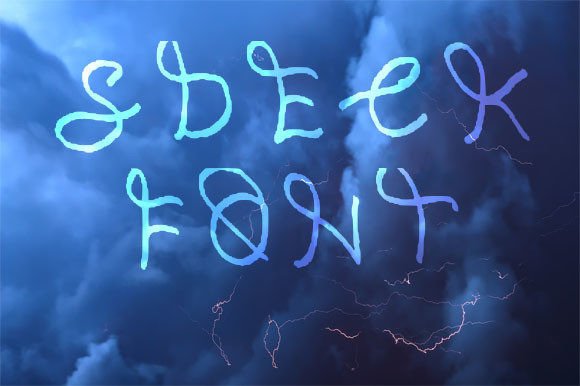
Immerse yourself in the captivating allure of Sdeck Font, a handcrafted masterpiece that will ignite your creative passions and elevate your designs to breathtaking heights. Each meticulously crafted letter exudes an air of elegance and authenticity, promising to transform your words into a visual symphony.
Indulge in the limitless possibilities that Sdeck Font presents. Its versatility extends far beyond the realm of CV design, inviting you to experiment with a myriad of creative endeavors. Unleash your inner artist and watch as your designs bloom with an ethereal beauty that captivates all who behold them.
Whether you seek to evoke a sense of timeless sophistication or inject a touch of playful charm, Sdeck Font has the power to elevate your creations. Its intricate strokes and flowing lines dance harmoniously across the page, creating a mesmerizing visual experience that will leave an unforgettable impression.
Step into a world of endless possibilities with Sdeck Font. Let your creativity soar and witness the transformative power of this enchanting font. Its allure will captivate your audience, leaving them spellbound by the sheer beauty of your words.